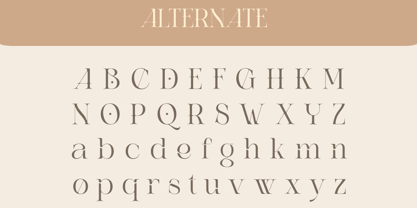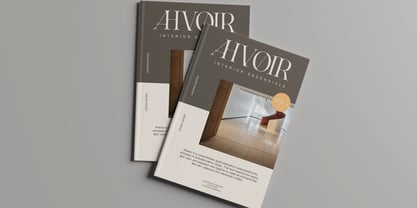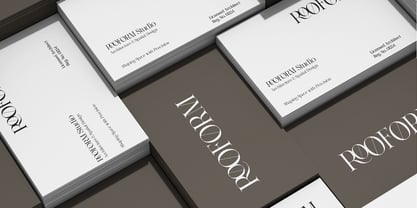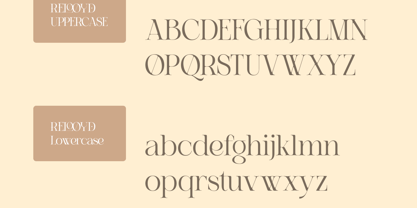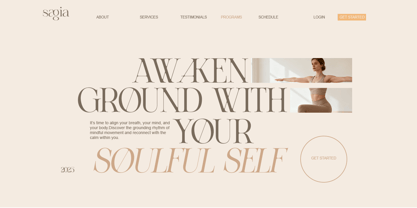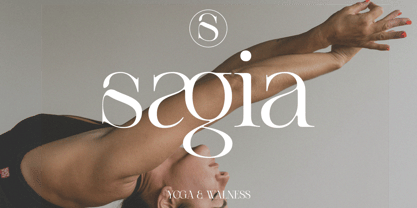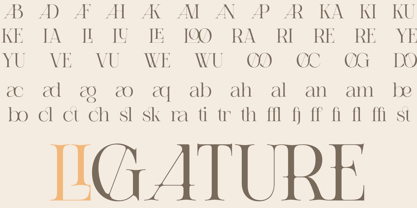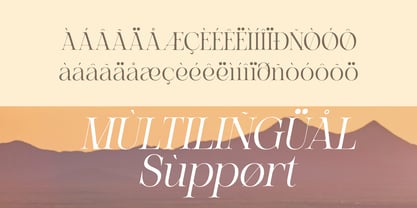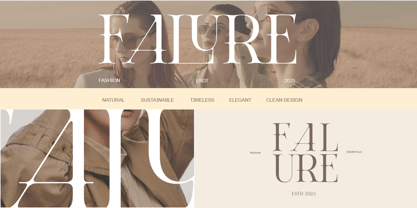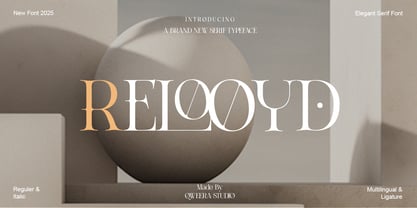
Relooyd
by Qweera Studio
The Relooyd Font Family was designed by Idhham Cholid Rikzano Yahya and published by Qweera Studio. Relooyd contains 2 styles and family package options. More about this family
Relooyd is a modern display serif typeface combining high contrast construction and refined ligature detailing. Designed with precision and clarity, it delivers strong visual rhythm while maintaining elegant restraint. The typeface includes stylistic alternates, multilingual coverage, and professional kerning, making it suitable for sophisticated branding systems and editorial applications. Features Alternates Ligatures Regular & Italic High-contrast structure Precision kerning Specifications Language Support: Western, Central Europe Encoding: PUA Support Recommended For Luxury branding, editorial design, fashion identity, packaging systems, premium print and digital typography.
Designers: Idhham Cholid Rikzano Yahya
Foundry: Qweera Studio